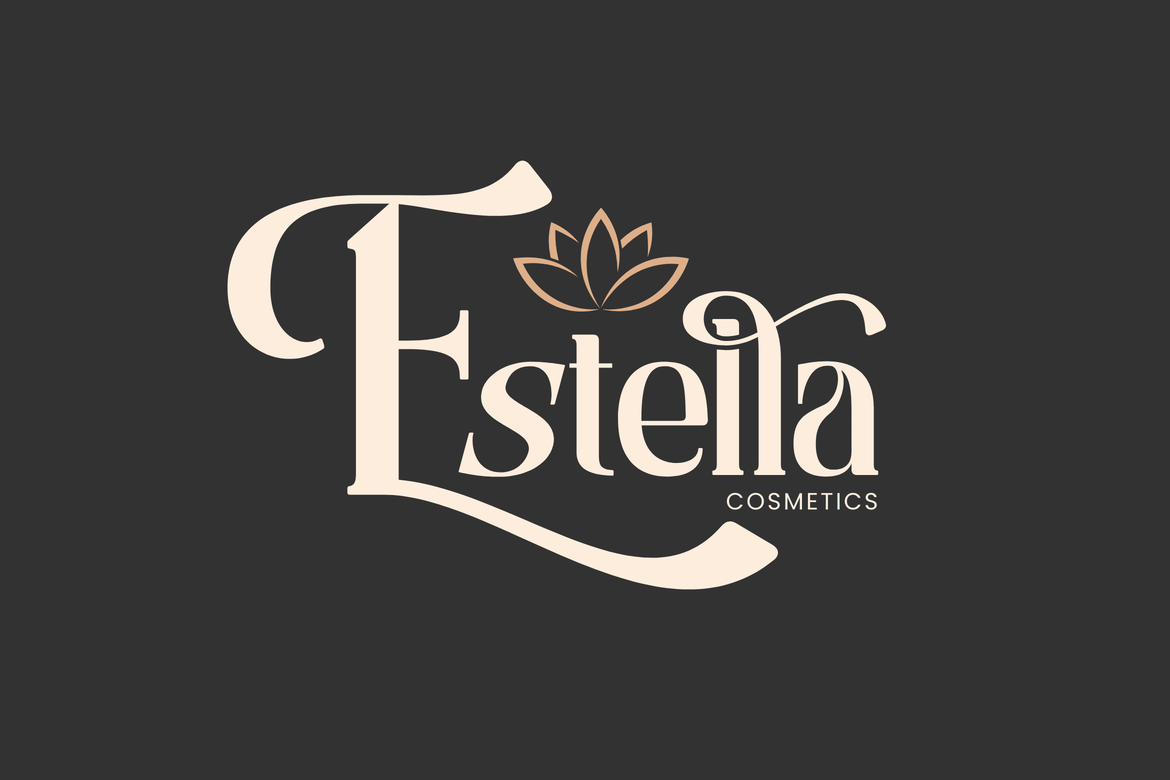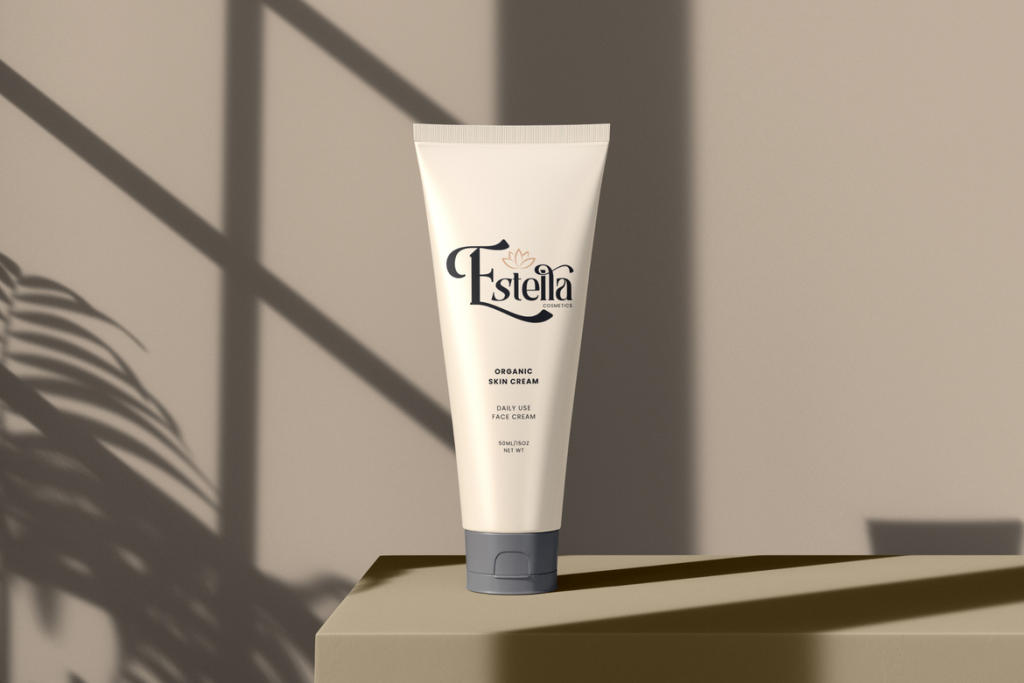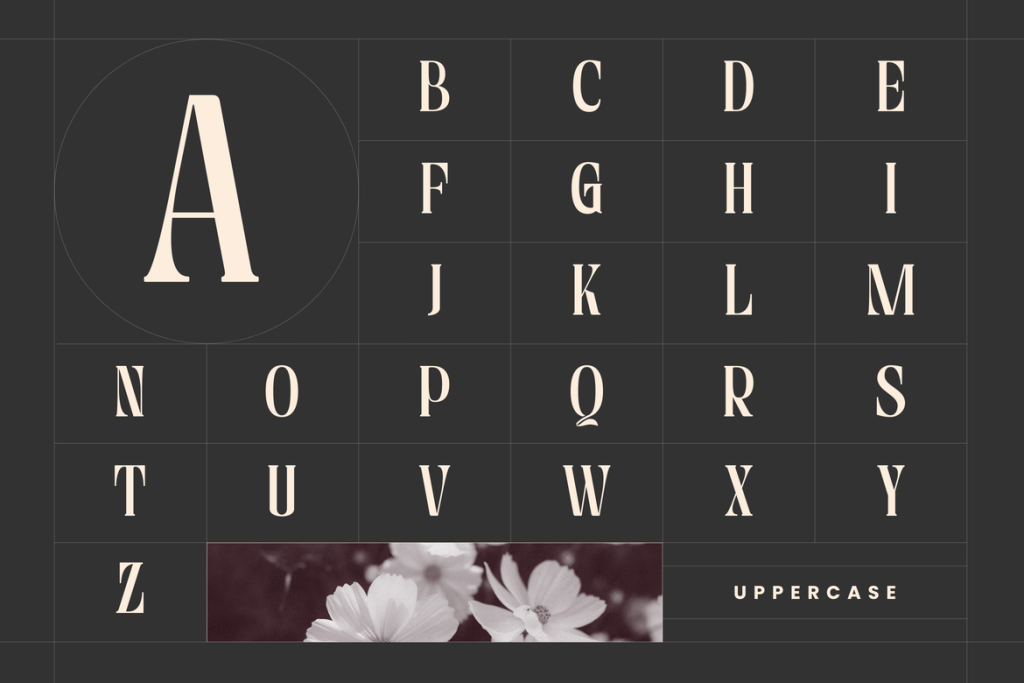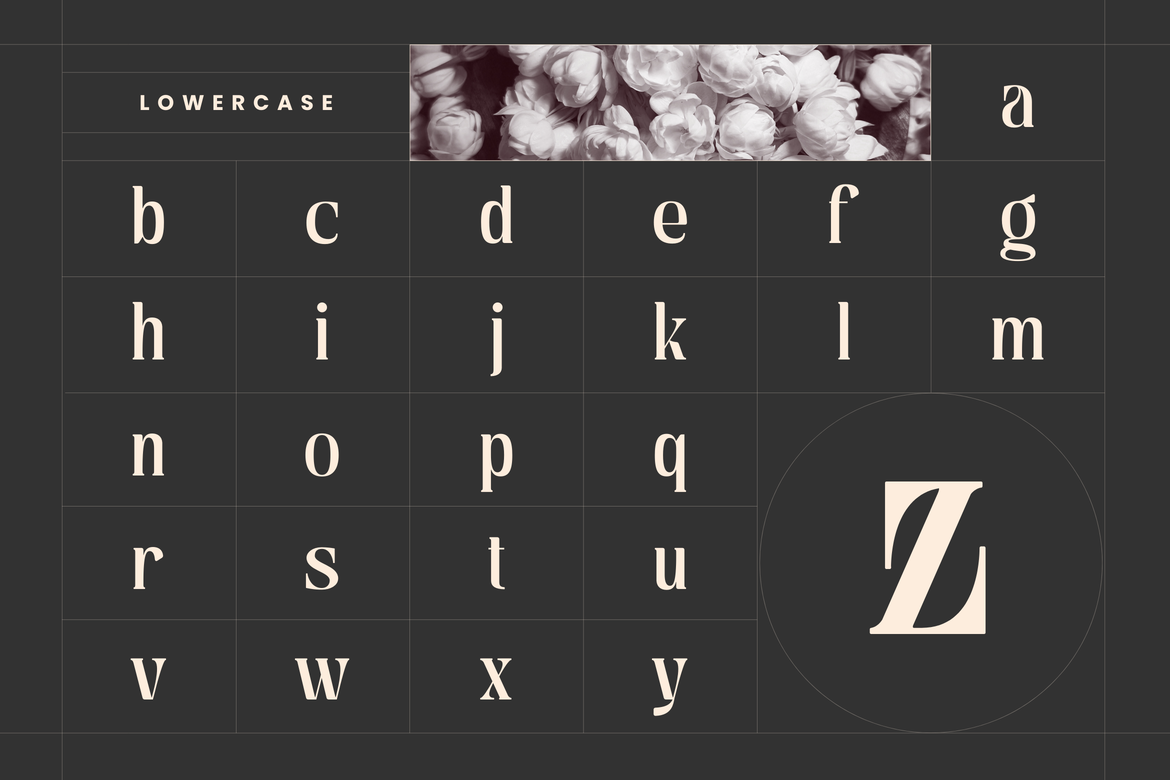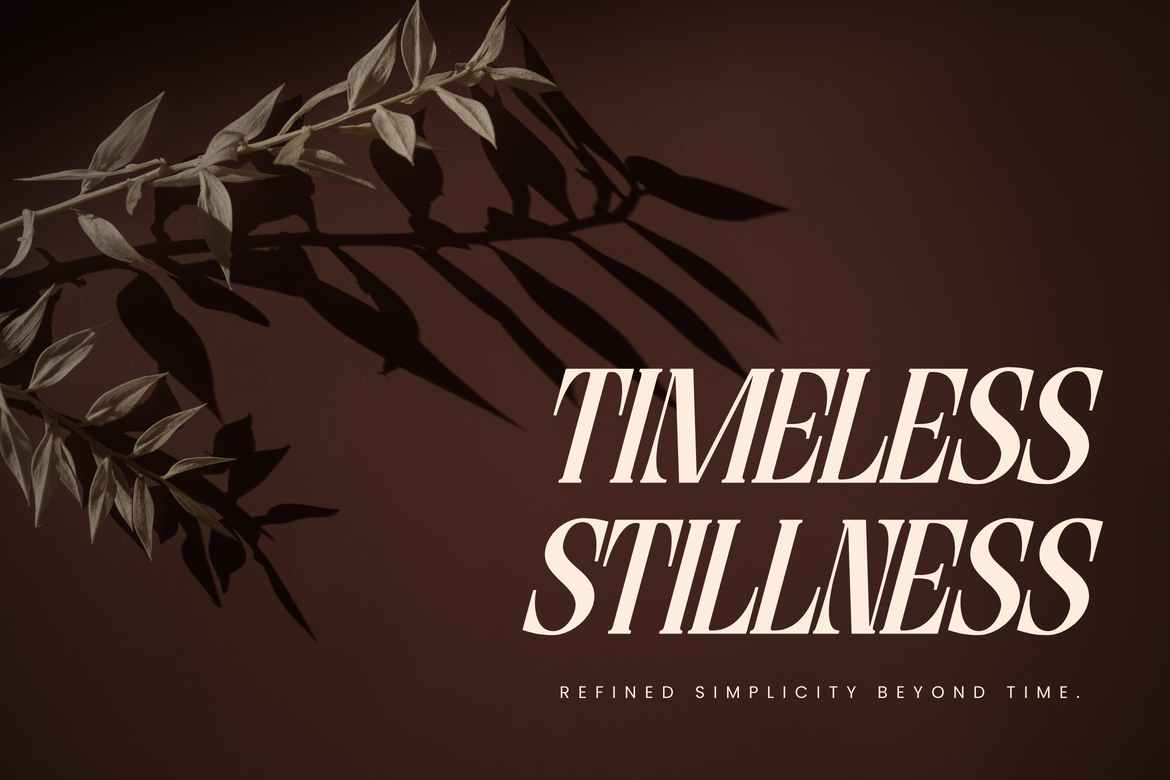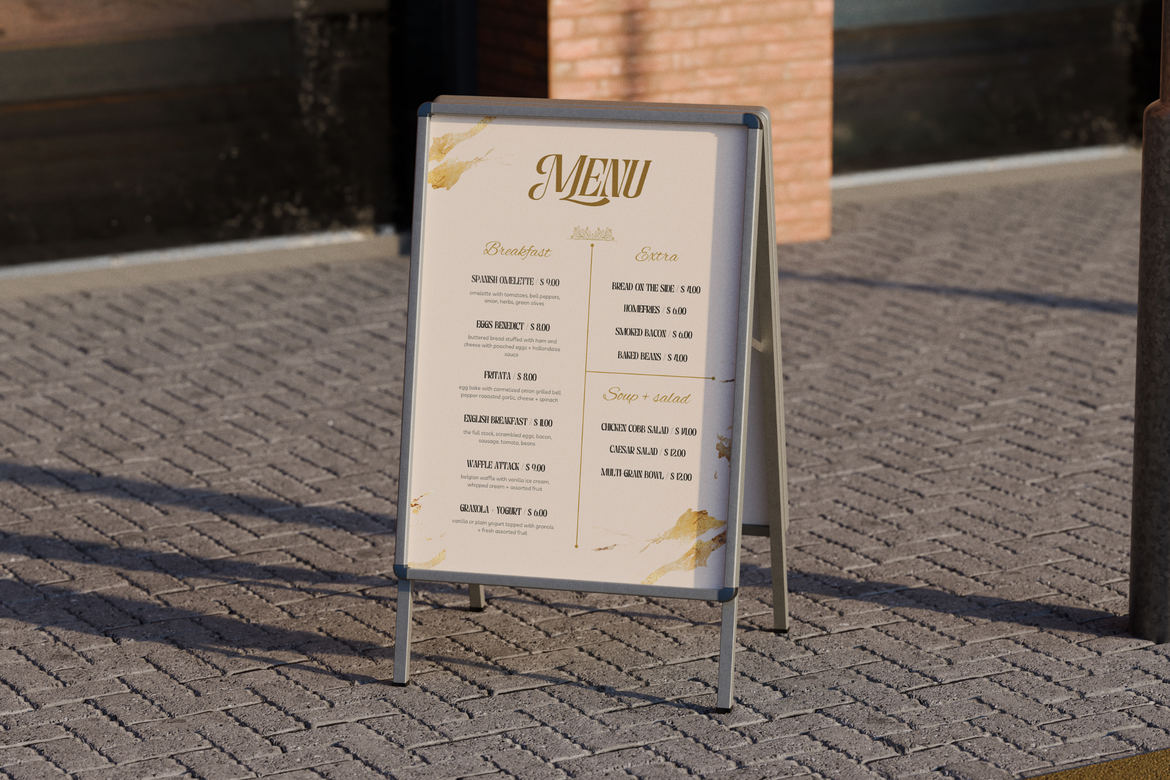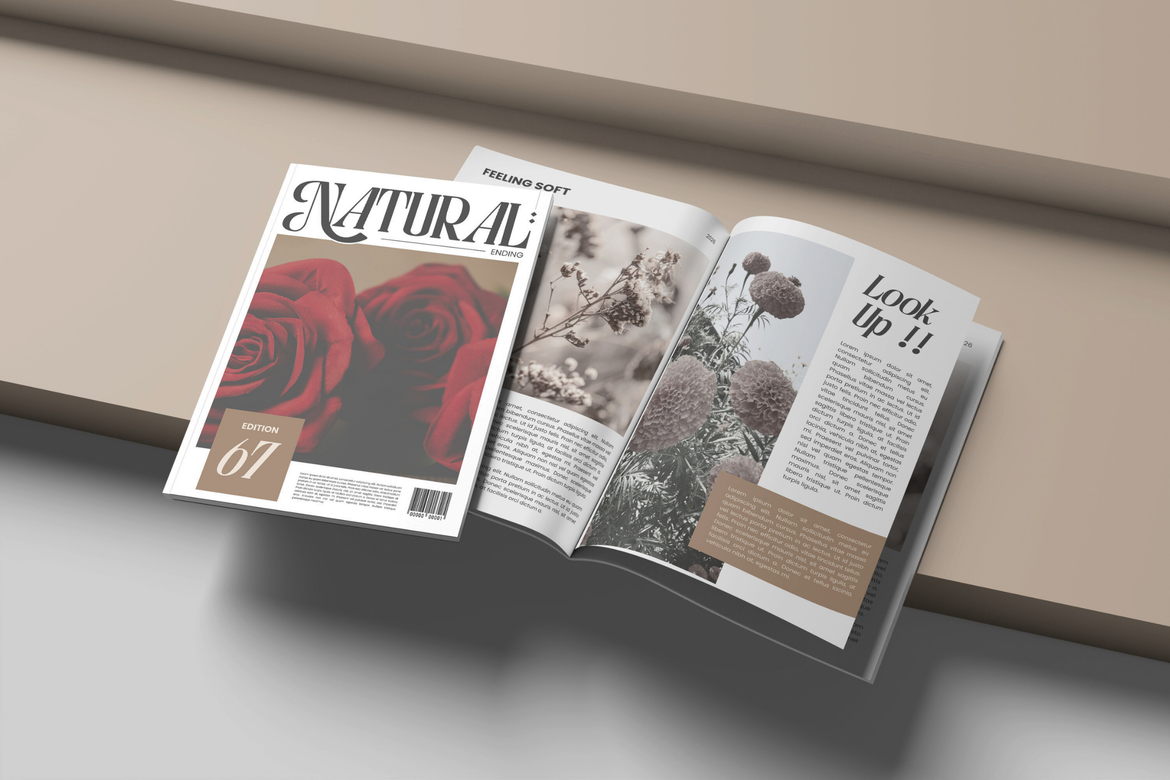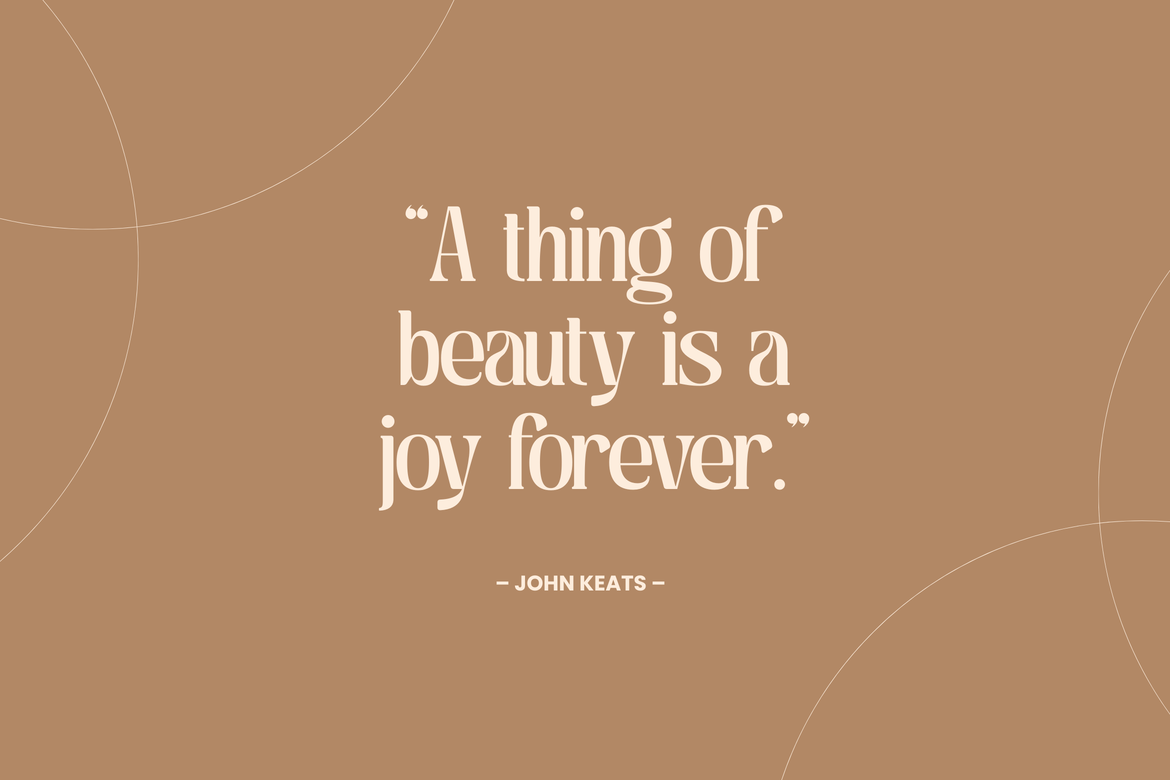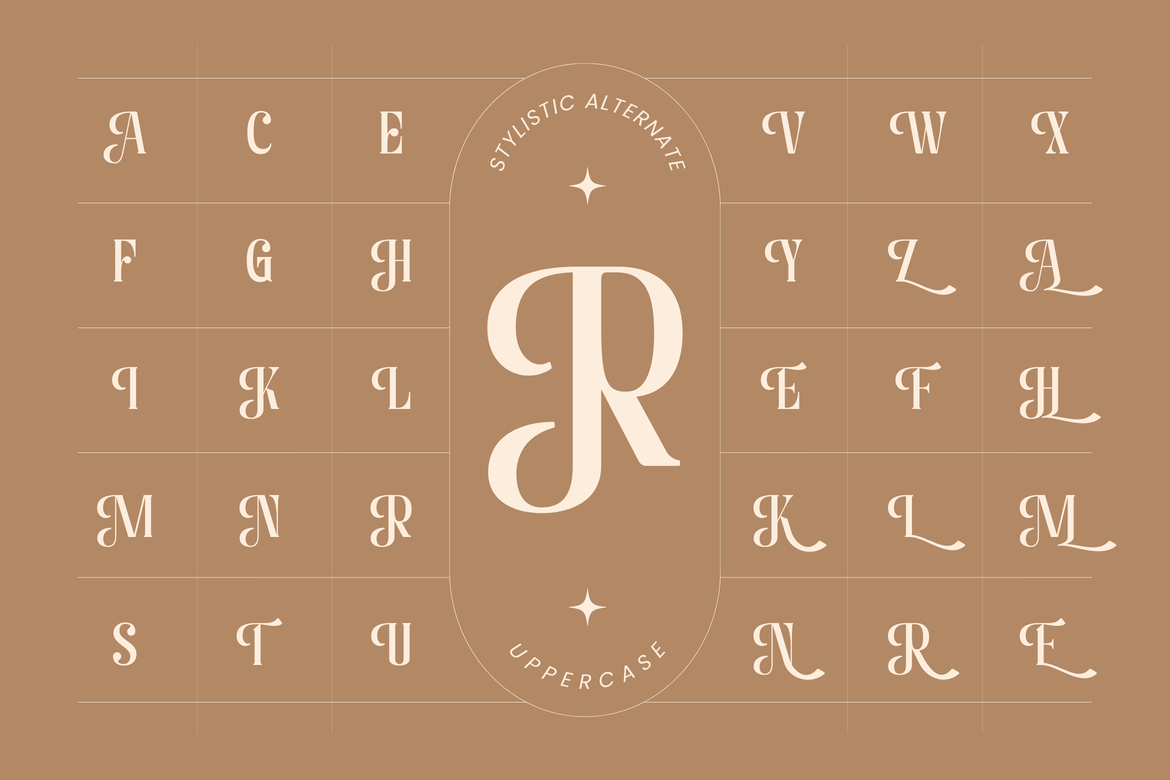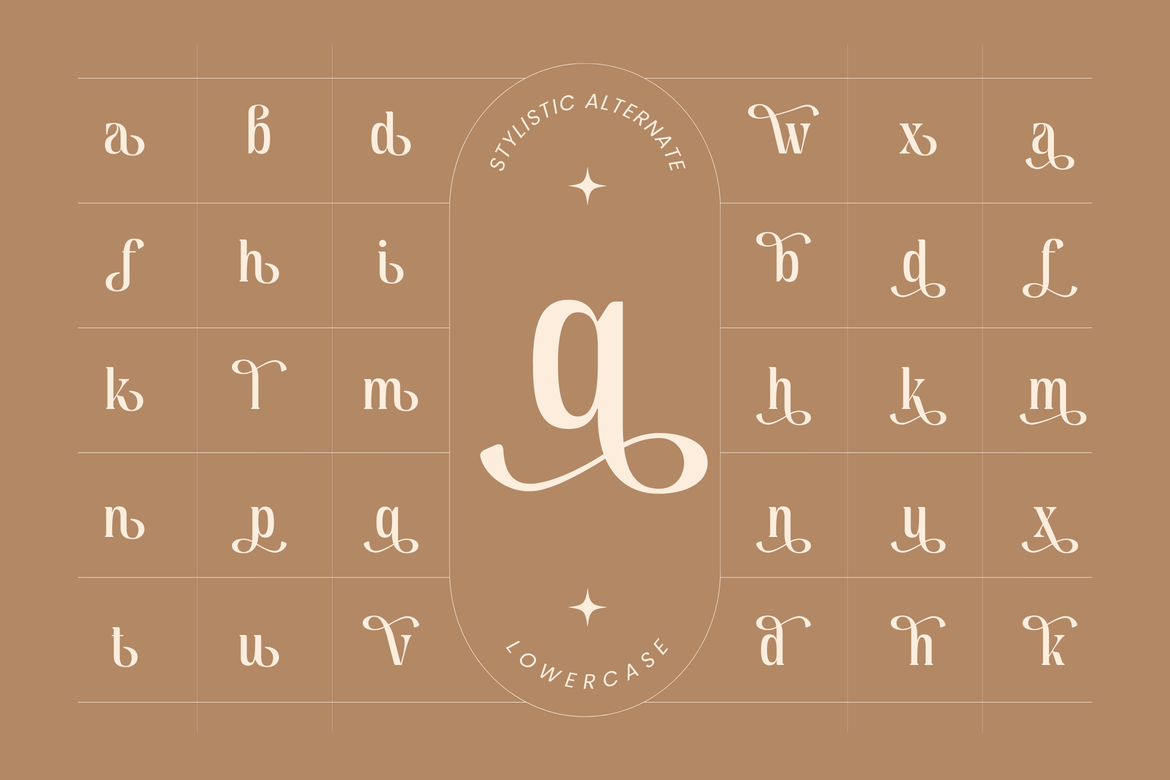
Astella Luxury offers beautiful typographic harmony for a diversity of design projects, including logos & branding, social media posts, advertisements & product designs.